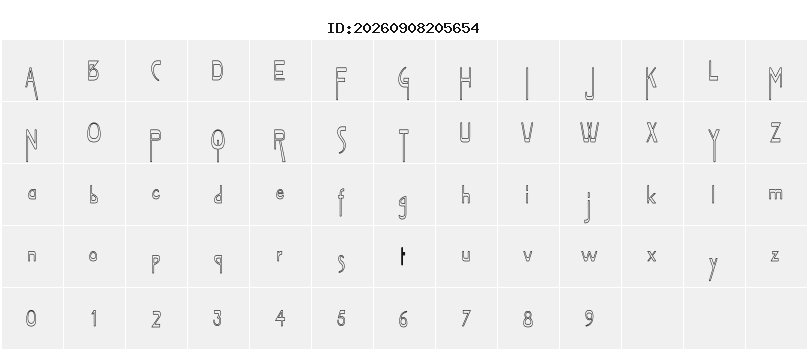
VireoFontHC Preview
• Font Name: VireoFontHC
• Full Font Name: VireoFontHC
• PostScript Name: VireoFontHC
About VireoFontHC.ttf
VireoFontHC.ttf is a modern, elegant sans-serif font designed for ultimate readability and visual harmony. Perfect for branding, headlines, web design, and print materials.